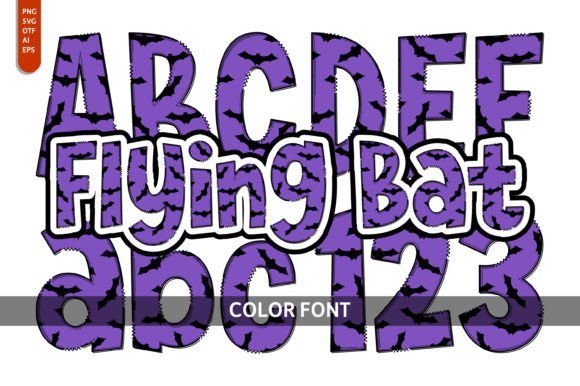
Flying High with Your Designs
Have you ever sat at your desk, staring blankly at a blank canvas, searching for that elusive spark of creativity? Maybe you’re working on a Halloween-themed project or a party invitation, and you just can’t seem to find the right font to match your vision. Well, we’ve got some exciting news for you – your search is over!
Meet Flying Bat Font, a delightful color font that brings a sense of whimsy and adventure to your designs. With its playful charm and versatility, Flying Bat Font is the perfect addition to any project that needs a touch of magic. Whether you’re a seasoned designer or just starting out, this font is a valuable asset that will take your creations to new heights.
So why settle for ordinary when you can let your creativity take flight with Flying Bat Font? Get ready to unleash your imagination and bring your designs to life with this enchanting font!
Flying Bat Font Key Features
- Unique Characteristics: The Flying Bat Font features a unique blend of gothic and grotesque styles, with bold lines and geometric shapes that give it a distinctive look.
- Font Style: The font comes in both regular and bold styles, allowing designers to choose the right level of emphasis for their text.
Flying Bat Font Review
When I first laid eyes on the Flying Bat Font, I was immediately drawn to its whimsical and playful vibe ✨. The font’s use of curved lines and organic shapes creates a sense of movement and fluidity that’s perfect for designs that need a bit of whimsy. I’ve found it to work particularly well in children’s book illustrations and fantasy-themed projects.
Here are a few things that I really like about the Flying Bat Font:
- ✨ Its unique and quirky style makes it stand out from more traditional fonts.
That being said, there are a few limitations to consider:
- ⚠️ The font may be a bit too ornate for some designs, potentially overwhelming the viewer.
- ⚠️ The font’s unique style may not be suitable for corporate or formal designs, where a more traditional font is often preferred.
Overall, I’d say the Flying Bat Font is a solid choice for designers who want to add a bit of personality to their projects. With its unique style and high level of customization, it’s a great option for those who want to think outside the box and create something truly special.
Here are some tips for getting the most out of Flying Bat Font:
- Use Flying Bat Font for titles and headings to add a touch of whimsy and playfulness to your designs.
- Combine Flying Bat Font with other fonts to create a unique and eye-catching typographic style.
- Use Flying